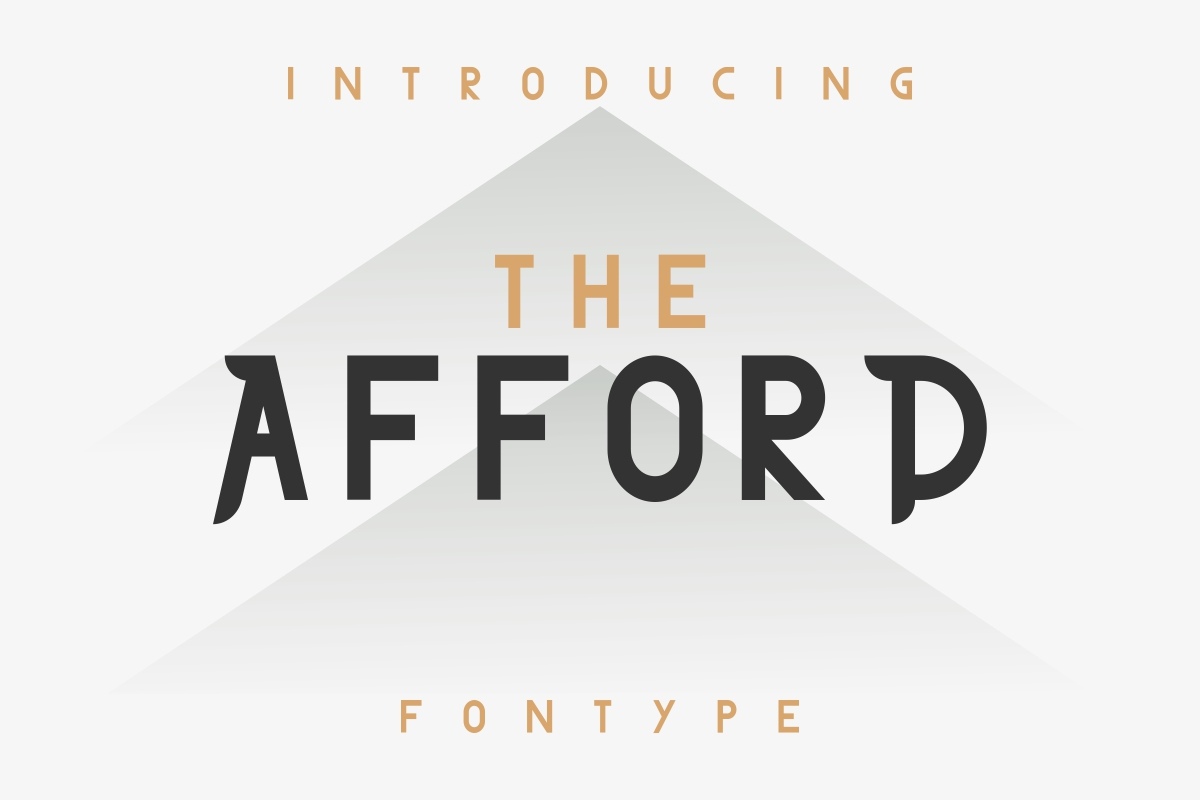
THE AFFORD Font
THE AFFORD Font is perfect for luxury branding, high-end fashion magazines, premium product packaging, elegant wedding invitations, sophisticated business cards, upscale restaurant menus, architectural firm branding, jewelry advertisements, and exclusive event marketing materials.
What makes THE AFFORD Font so exciting is its distinctive blend of classic elegance and contemporary sophistication that immediately commands attention and respect. This typeface exudes an air of exclusivity and premium quality through its carefully crafted letterforms that feature refined proportions and subtle stylistic details. The font's unique appeal stems from its ability to convey affluence and prestige without appearing ostentatious, making it the perfect choice for brands targeting discerning customers who appreciate quality and craftsmanship.
Whether you're creating an exclusive brand identity, designing premium marketing collateral, or developing sophisticated editorial layouts, THE AFFORD Font Free Download delivers unmatched elegance and visual authority. This distinguished typeface performs exceptionally well in both large display applications and smaller text settings, maintaining its luxurious character while ensuring optimal readability. The font's meticulously designed letterforms include refined details and balanced proportions that create a sense of timeless sophistication.
Design professionals consistently select THE AFFORD Font for projects that require an immediate impression of quality, exclusivity, and premium positioning. Its sophisticated aesthetic makes it particularly valuable for luxury goods, high-end services, and aspirational brands across industries including fashion, automotive, real estate, and hospitality. The font's authoritative presence and elegant styling create instant brand recognition while communicating values of excellence, tradition, and superior craftsmanship that resonate with affluent target audiences.